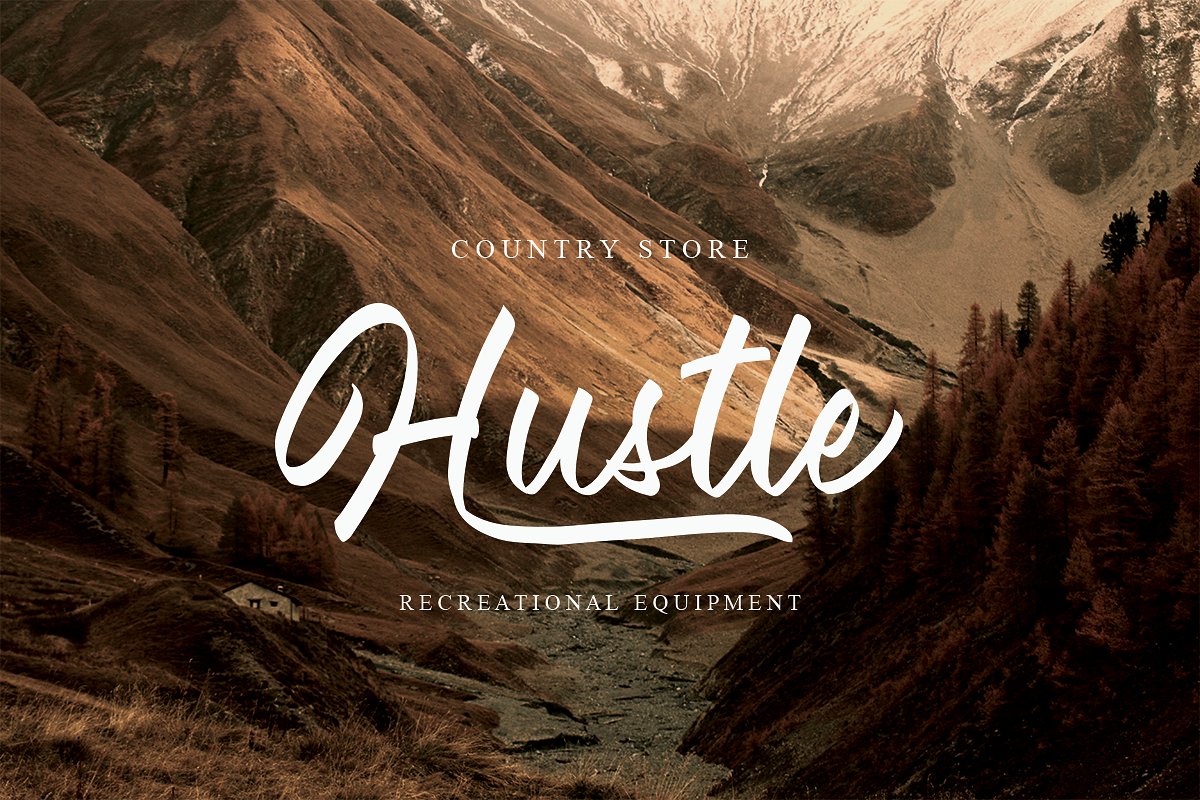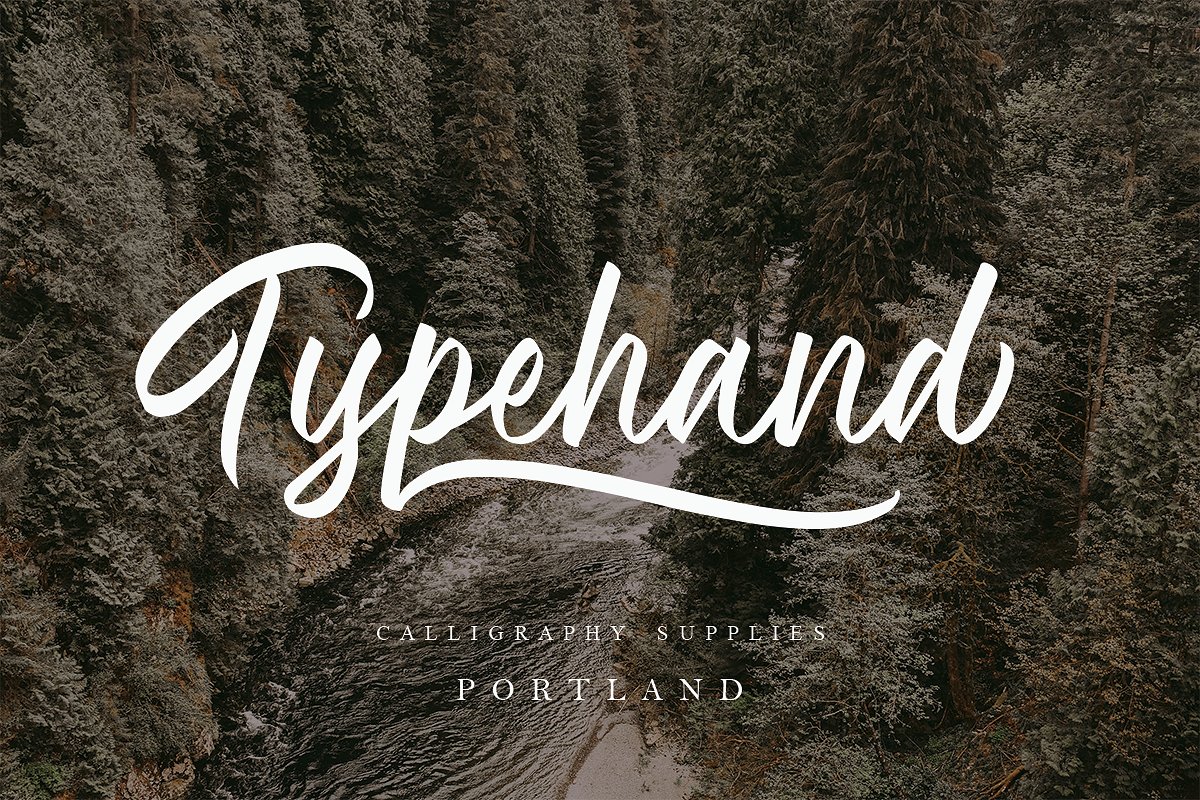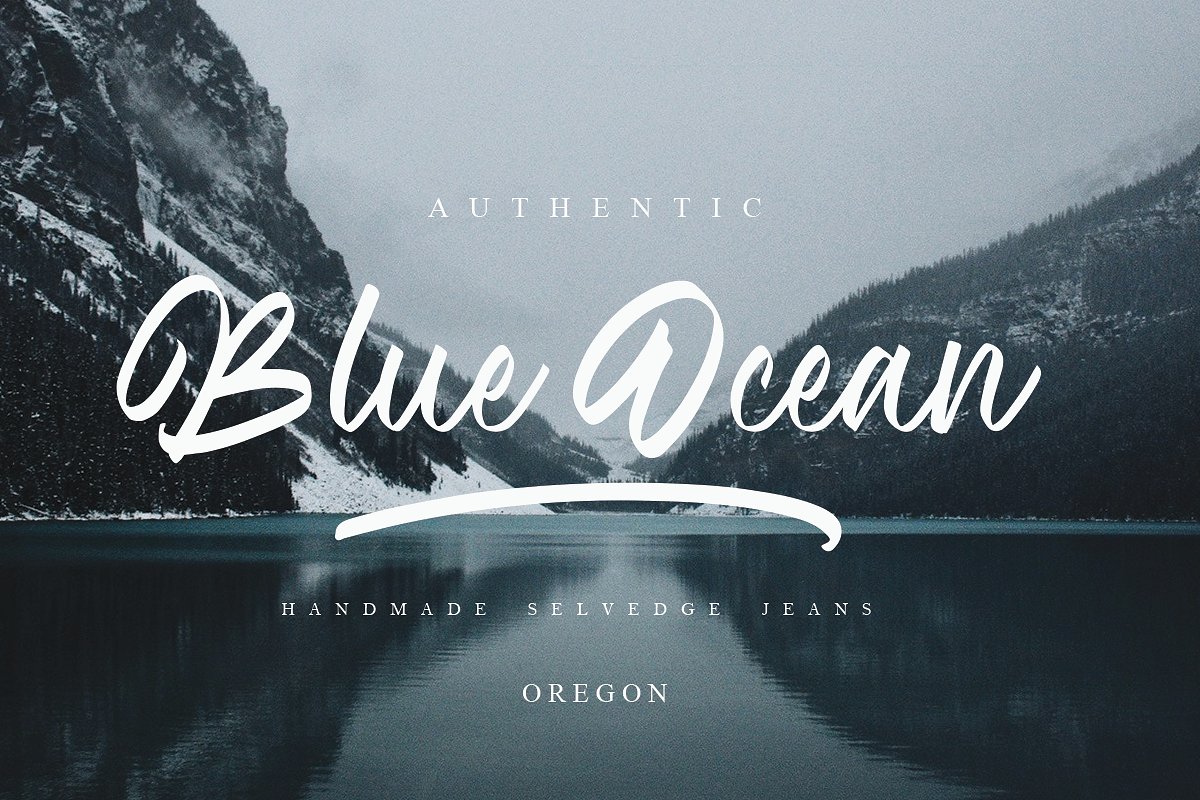
Wilderness Font
INTRODUCING: Wilderness Font Calligraphy !! Flowing my handwriting font and style of writing. With a quick sweep and distinctive style, Wilderness Calligraphy is perfect for branding projects, logo design, product packaging etc. plus an ligature, multilingual support & Stylish Alternate for adjusting your project. or just as a text requirement for any background image.